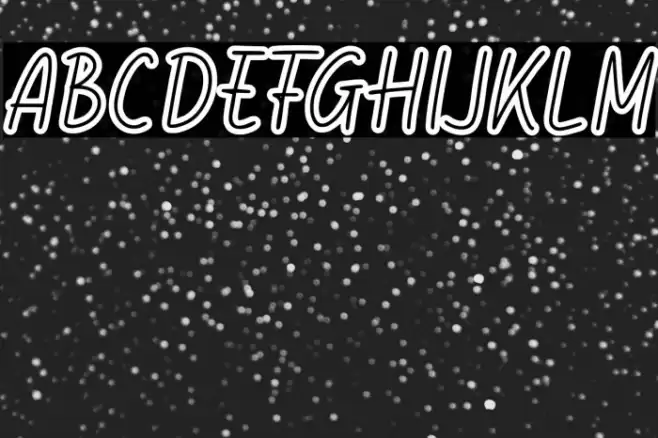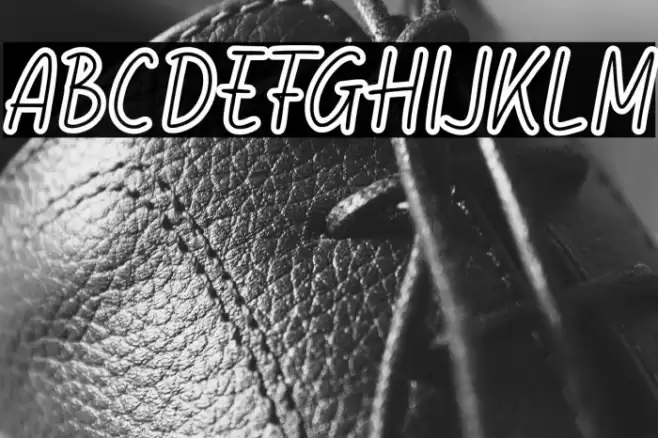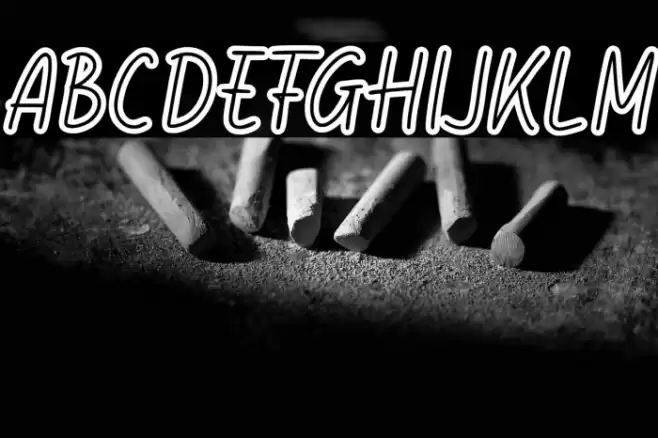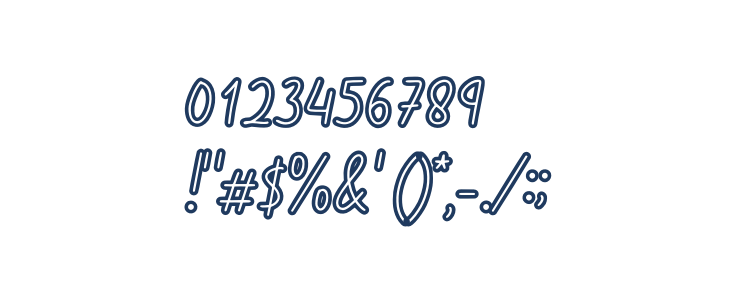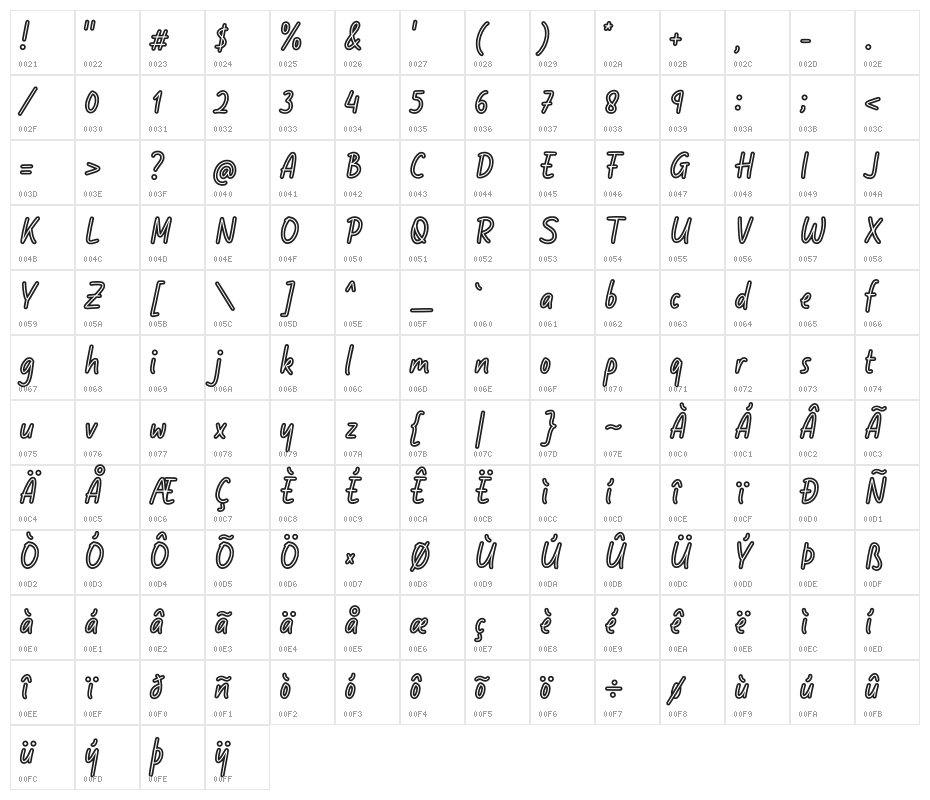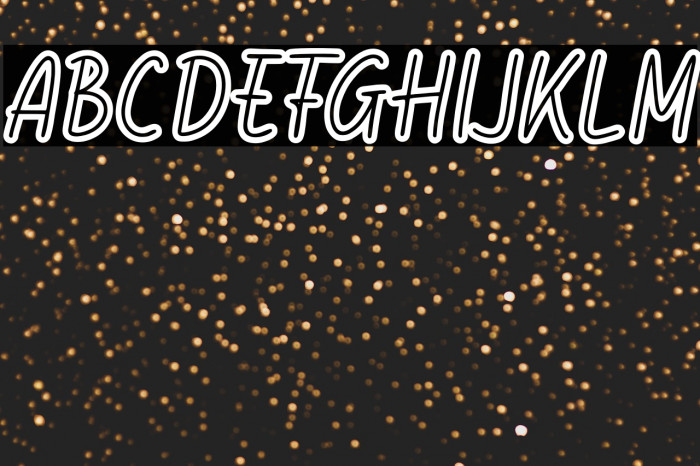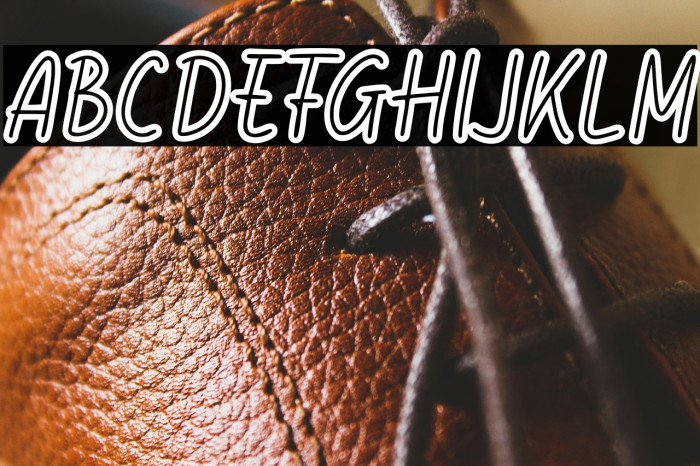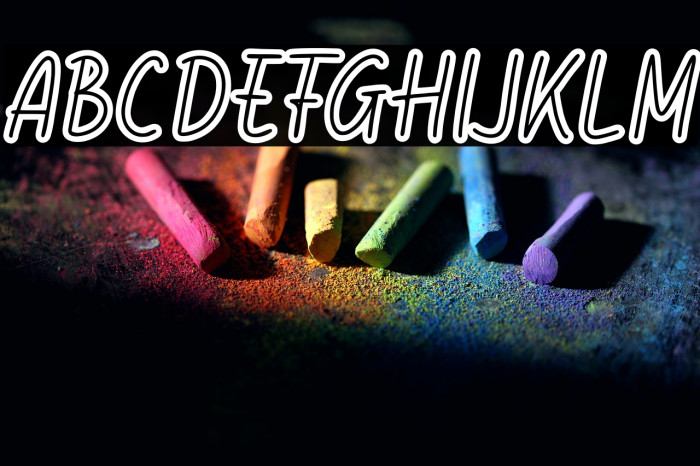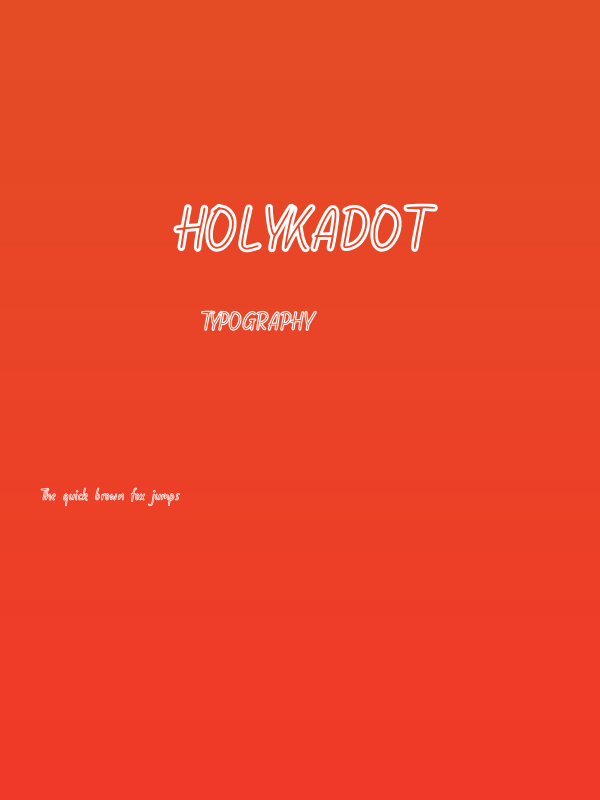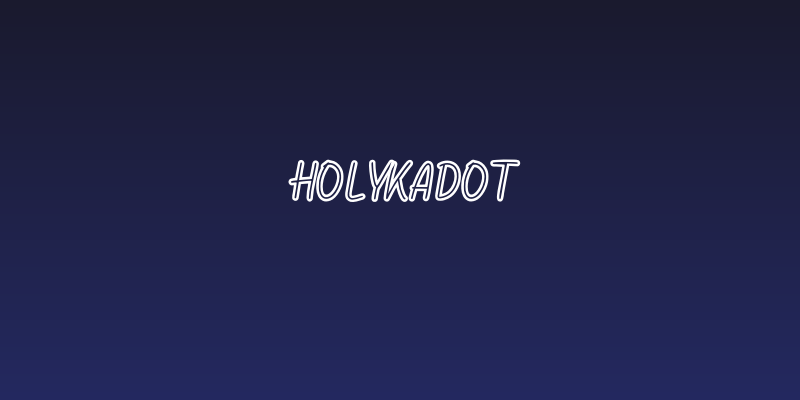
Holykadot Font
Holykadot Description
This font features a playful and bold handwritten style, characterized by its thick, rounded strokes and slightly irregular letterforms. The letters are outlined, giving them a distinct and eye-catching appearance. The uppercase and lowercase letters maintain a consistent style, with a slight slant that adds to the casual and informal feel. The numbers and special characters are designed to match the overall aesthetic, making this font suitable for creative and fun projects. Its unique style makes it stand out, perfect for designs that require a touch of personality and flair.
A bold, playful handwritten font with outlined characters and a casual style from Uncategorized fonts.
- Font: Holykadot
- Proposed Projects: Ideal for children's books, playful branding, greeting cards, and creative posters.
- Overall Style: Playful, Casual